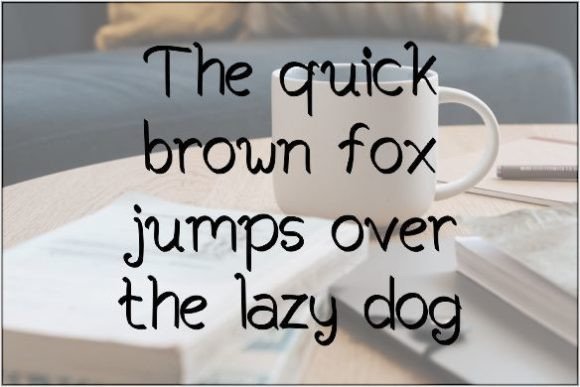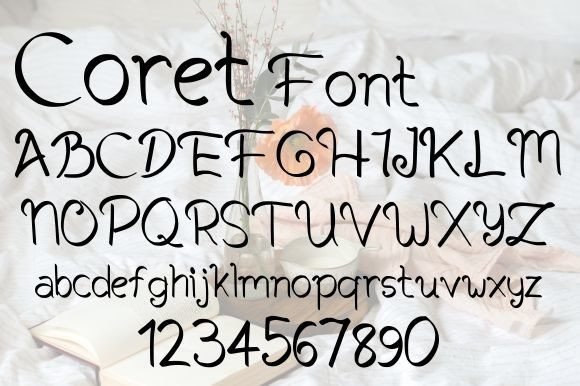
Introducing Coret Coret Font: Add a Touch of Whimsy to Your Designs
Are you tired of using the same old fonts in your designs? Do you want to add a touch of personality and whimsy to your crafty projects? Look no further than Coret Coret Font! This fun and playful handwritten font is perfect for designers and crafters who want to add a dash of creativity to their work.
What is Coret Coret Font?
Coret Coret Font is a unique and charming handwritten font that is sure to capture the attention of your audience. With its playful and carefree vibe, this font is perfect for a wide range of design projects, from DIY crafts to digital graphics. Whether you’re creating invitations, greeting cards, or social media graphics, Coret Coret Font is sure to add a touch of whimsy and fun to your designs.
Features of Coret Coret Font
So, what makes Coret Coret Font so special? Here are just a few of its key features:
- Handwritten style: Coret Coret Font has a beautiful, handwritten style that gives it a personal and unique touch.
- Playful vibe: This font has a playful and carefree vibe that’s perfect for adding a touch of whimsy to your designs.
- Easy to read: Despite its playful style, Coret Coret Font is easy to read and understand, making it perfect for use in a wide range of design projects.
- Versatile: Coret Coret Font can be used in a wide range of design projects, from digital graphics to print materials.
How to Use Coret Coret Font
Using Coret Coret Font in your designs is easy! Here are a few tips to get you started:
- Pair it with other fonts: Coret Coret Font pairs well with other fonts, so feel free to experiment with different combinations to find the perfect look for your design.
- Use it for headings and titles: Coret Coret Font is perfect for use in headings and titles, where its playful style can really shine.
- Add it to your digital graphics: Coret Coret Font is a great addition to digital graphics, such as social media posts and blog graphics.
- Use it for DIY crafts: Coret Coret Font is also perfect for use in DIY crafts, such as handmade cards and invitations.
Benefits of Using Coret Coret Font
So, why should you use Coret Coret Font in your designs? Here are just a few of the benefits:
- Adds personality to your designs: Coret Coret Font adds a touch of personality and whimsy to your designs, making them stand out from the crowd.
- Easy to use: Coret Coret Font is easy to use and can be incorporated into a wide range of design projects.
- Versatile: Coret Coret Font can be used in a wide range of design projects, from digital graphics to print materials.
- Fun and playful: Coret Coret Font is a fun and playful font that’s perfect for designers and crafters who want to add a dash of creativity to their work.
In conclusion, Coret Coret Font is a fun and whimsical handwritten font that’s perfect for designers and crafters who want to add a touch of personality and creativity to their work. With its playful style and easy-to-use design, Coret Coret Font is sure to become a favorite in your design arsenal. So why wait? Download Coret Coret Font today and start adding a touch of whimsy to your designs!
Here are a few tips and tricks to help you get the most out of Coret Coret Font:
- Experiment with different colors: Coret Coret Font looks great in a wide range of colors, so feel free to experiment to find the perfect look for your design.
- Use it with images: Coret Coret Font pairs well with images, so consider using it in combination with photos or illustrations.
- Try it with different textures: Coret Coret Font can be used with a wide range of textures, from smooth and sleek to rough and distressed.
With Coret Coret Font, the possibilities are endless! So why wait? Download the font today and start adding a touch of whimsy and creativity to your designs.